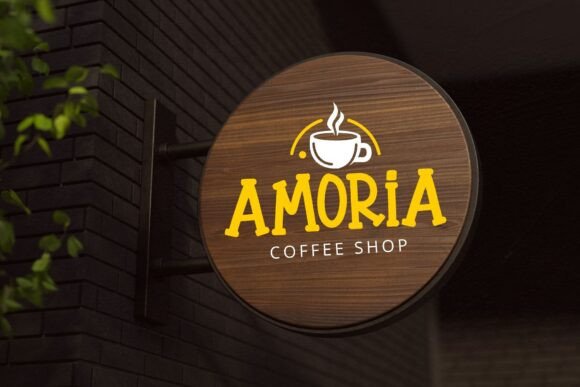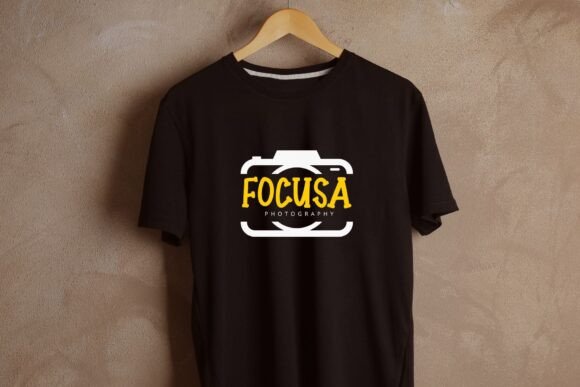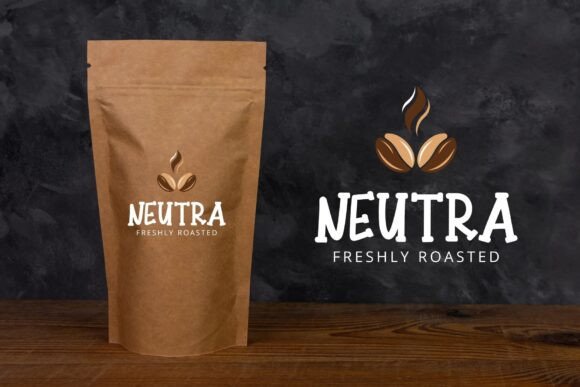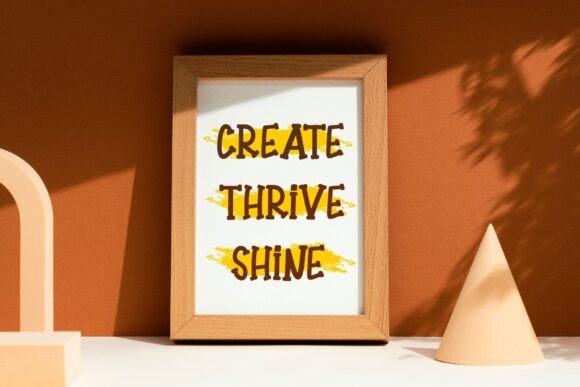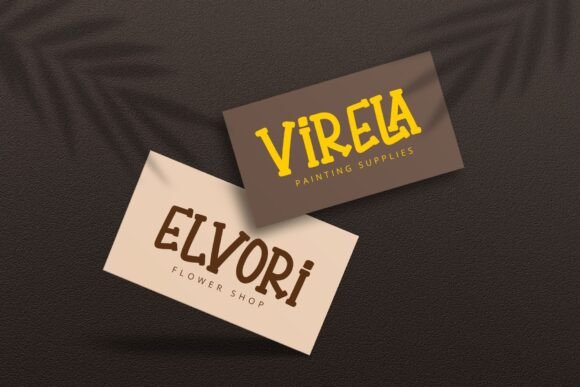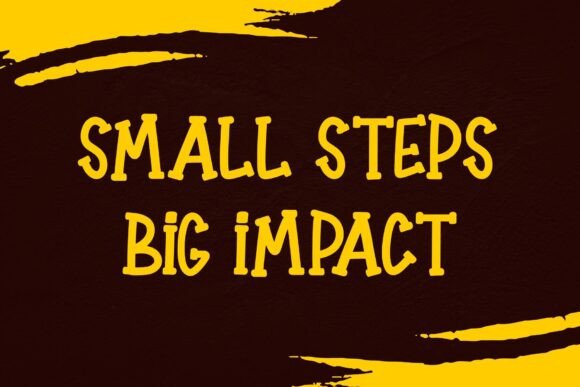
Introduction to Milau Font
Milau is a bold display font featuring unique geometric shapes and modern aesthetics.
Ideal for posters, branding, and packaging, its striking design adds a contemporary and creative touch to projects, ensuring a memorable visual impact .
Key Features of Milau Font